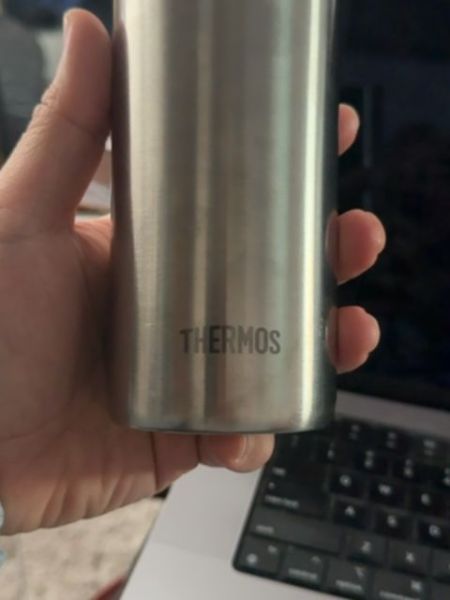
Thermos
An insulated container that keeps beverages hot or cold for extended periods.
1904
Germany
The typography is bold and sans-serif, which gives it a clean and contemporary appearance. The letters are evenly spaced, enhancing readability and lending the brand a strong, identifiable presence.
The packaging is sleek and metallic, giving it a modern and utilitarian look. It is cylindrical, with minimal decoration, focusing mainly on functionality.
- Invented in 1892 by Sir James Dewar.
- Widely used for outdoor activities and travel.
- The vacuum insulation technology minimizes heat transfer.